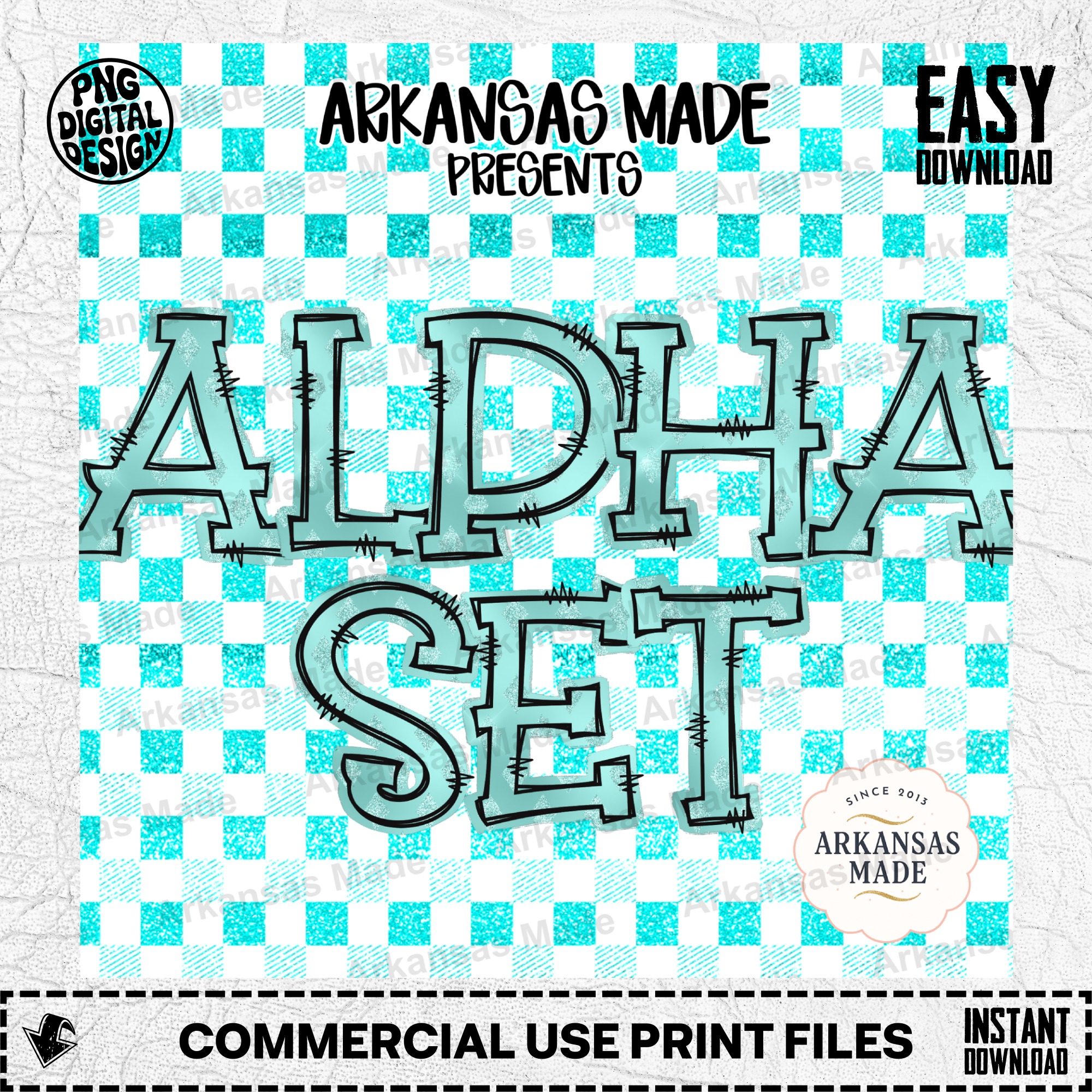
Glitter Teal Stitch Alpha Set PNG, Distressed Outline Alphabet Digital Download, Crafty DIY Font Letters for Sublimation & Print
Sparkle up your designs with this vibrant glitter teal stitch alpha set PNG, a distressed outline alphabet digital download for instant creative projects! Dive into crafting with these bold, playful letters featuring a faux sparkle effect and hand-drawn stitch details. Perfect for sublimation, custom t-shirts, tumbler designs, personalized gifts, school projects, or adding a unique touch to digital art. Ideal for crafters, DIY enthusiasts, and small business owners looking to create eye-catching, unique products.